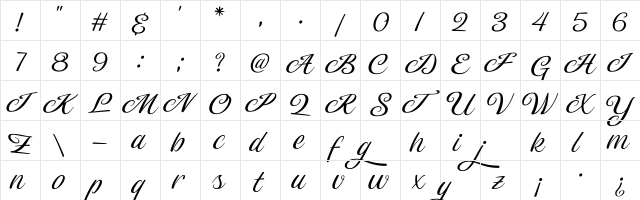
Magiera Script
| Style | Script |
| Designer | The Trending Fonts |
Design Context for Magiera Typeface
Magiera brings a calligraphic fluidity to the page — its connecting strokes and expressive curves give it an unmistakably human quality.
Font Pairing: Combine Magiera with a simple geometric sans for maximum contrast — the tension between flowing curves and clean structure is a classic typographic pairing.
Pro Tip: Use Magiera for short runs of text — names, titles, or taglines. Extended body copy in script faces tires the eye quickly.